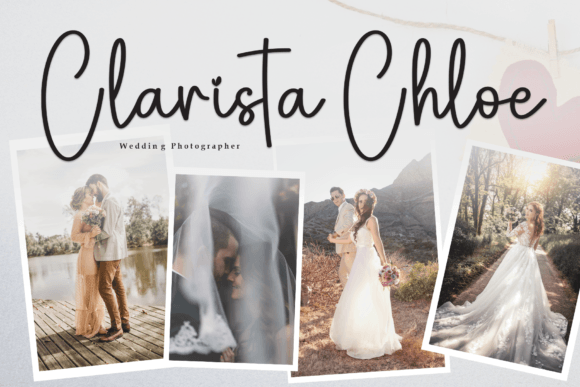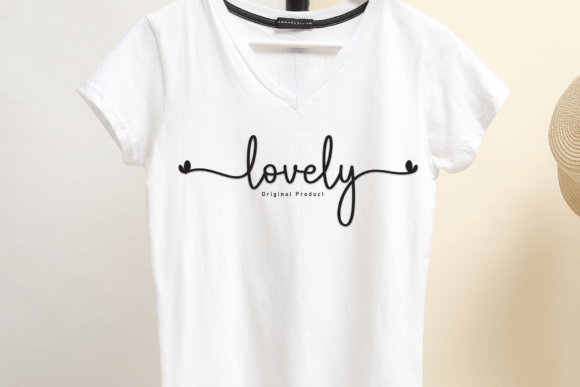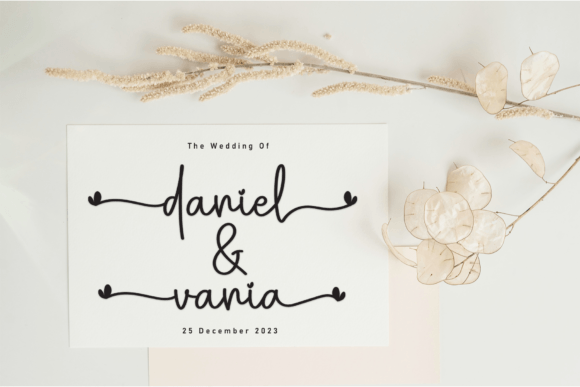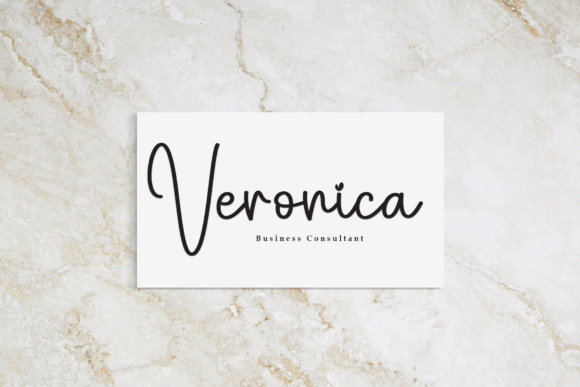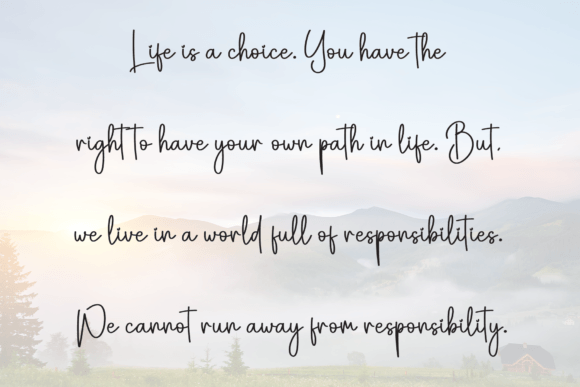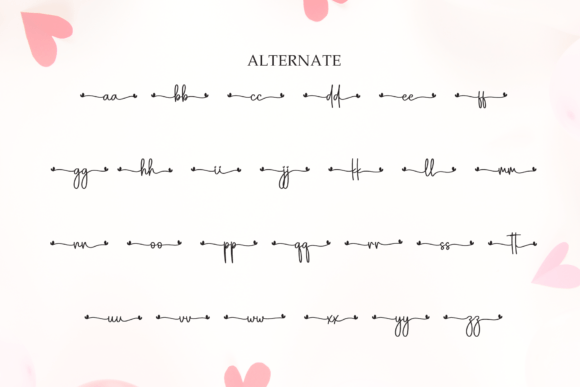
Introducing Finally Font: The Sweet and Friendly Handwritten Font
Are you tired of using the same old fonts in your designs? Look no further! Finally Font is here to add a touch of sweetness and friendliness to your creations. This beautiful handwritten font is perfect for designers and crafters who want to add a personal touch to their work.
The Unique Style of Finally Font
Finally Font boasts a natural and unique style that makes it incredibly versatile. Its handwritten charm is perfect for a wide range of designs, from invitations and greeting cards to logos and branding materials. The font’s organic feel and imperfections give it a human touch that is sure to resonate with your audience.
Endless Possibilities with Finally Font
The best part about Finally Font is that its possibilities are endless! The only limit is your imagination. You can use it to create:
- Beautiful wedding invitations and stationery
- Eye-catching logos and branding materials
- Delightful greeting cards and gift tags
- Creative social media graphics and posts
- And so much more!
Why Choose Finally Font?
So, what sets Finally Font apart from other fonts? Here are just a few reasons why designers and crafters love it:
- Unique and handmade**: Finally Font is a one-of-a-kind, handwritten font that adds a personal touch to your designs.
- Highly versatile**: Its natural and organic style makes it perfect for a wide range of designs and applications.
- Easy to read**: Despite its handwritten nature, Finally Font is incredibly legible and easy to read.
Tips for Using Finally Font
To get the most out of Finally Font, here are a few tips to keep in mind:
- Experiment with different sizes and colors**: Finally Font looks great in a variety of sizes and colors, so don’t be afraid to get creative!
- Pair it with other fonts**: Try pairing Finally Font with other fonts to create a unique and eye-catching combination.
- Use it for headlines and body text**: Finally Font is perfect for both headlines and body text, making it a great all-around font for your designs.
In conclusion, Finally Font is a sweet and friendly handwritten font that is perfect for designers and crafters who want to add a personal touch to their work. Its natural and unique style makes it incredibly versatile, and its endless possibilities are limited only by your imagination. So why wait? Download Finally Font today and start creating beautiful, one-of-a-kind designs!